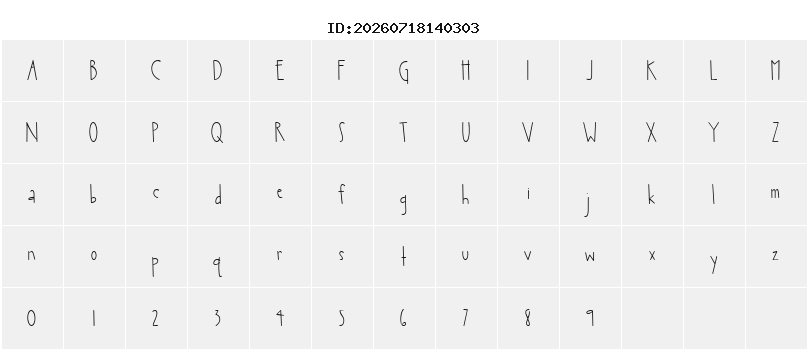
About CK Twiggy.ttf
CK Twiggy.ttf is a modern, elegant sans-serif font designed for ultimate readability and visual harmony. Perfect for branding, headlines, web design, and print materials.